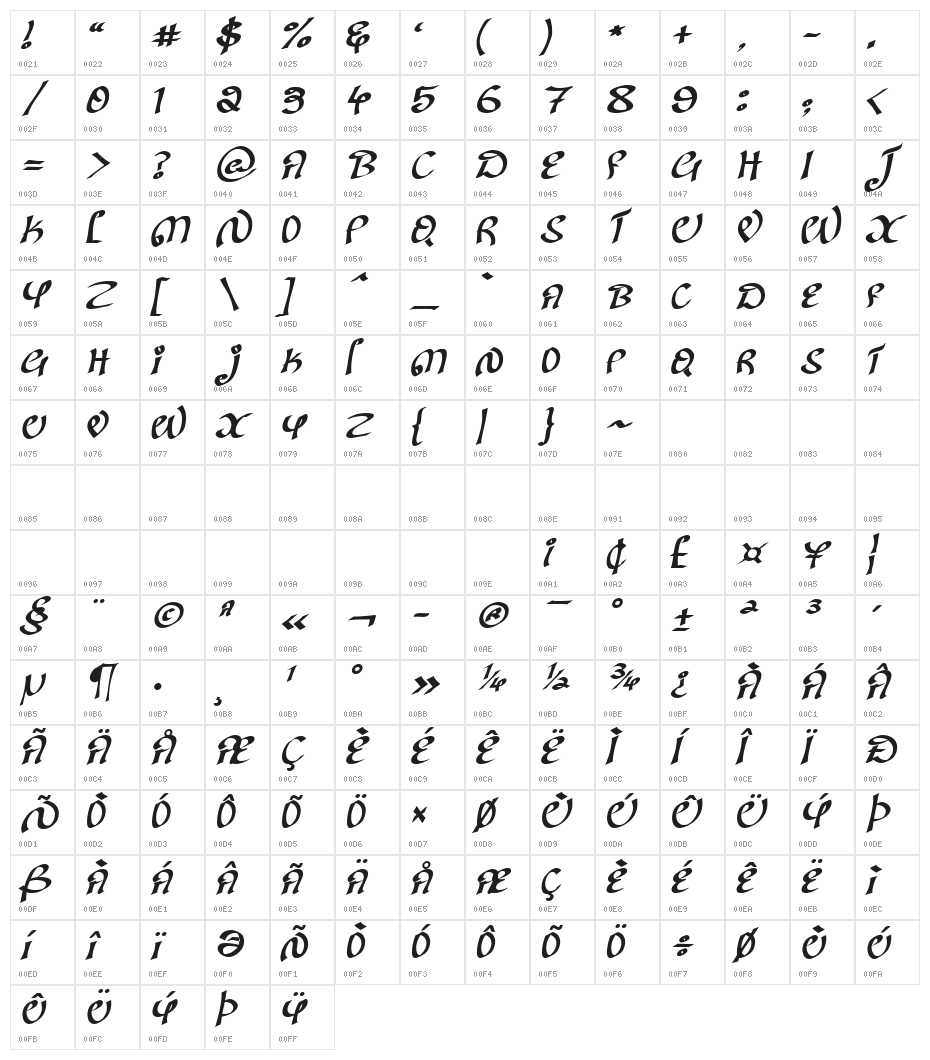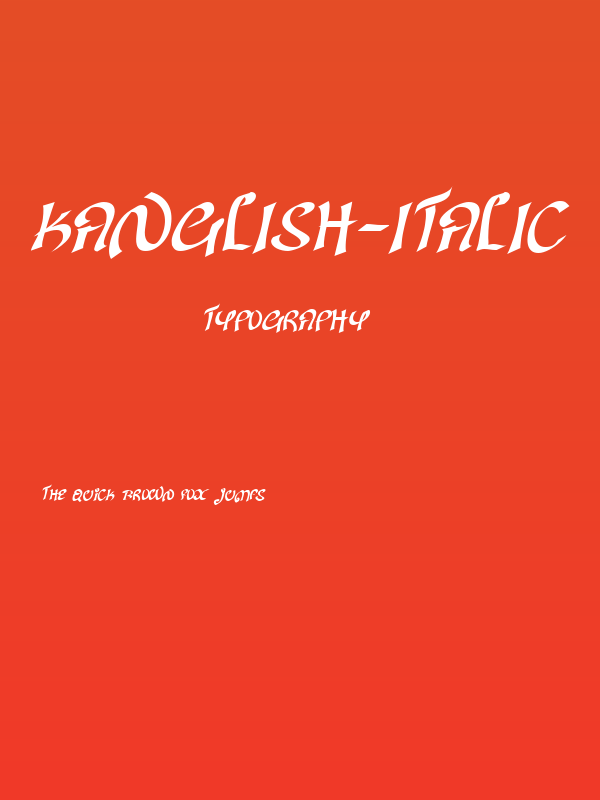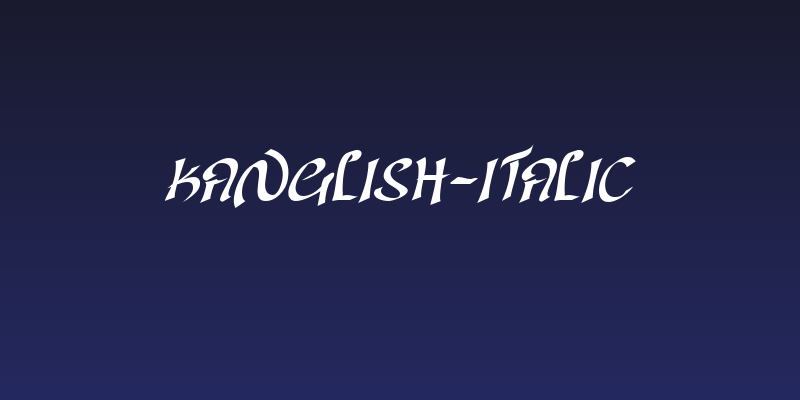
Kanglish-Italic Font
Kanglish-Italic Description
This font features a bold and dynamic script style with a distinct italic slant, giving it a sense of movement and energy. The characters are crafted with thick strokes and sharp edges, creating a striking contrast between the bold lines and the negative space. The uppercase and lowercase letters maintain a consistent flow, while the numerals and special characters are designed to complement the overall aesthetic. This font's unique style makes it stand out, offering a blend of traditional calligraphy and modern design elements.
| Proposed Projects | Ideal for branding, logos, headlines, and creative projects that require a bold and artistic touch. |